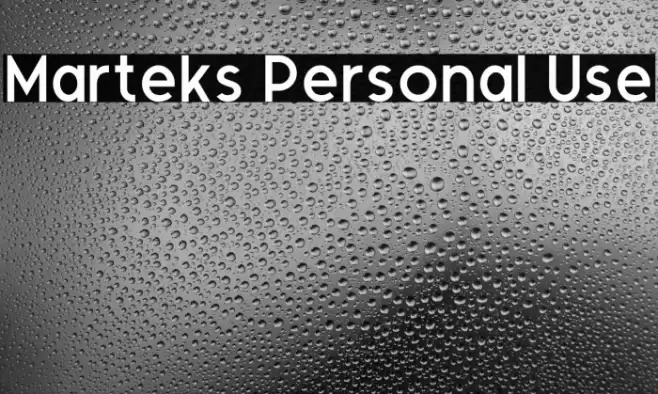
Marteks Personal Use Font
Marteks Personal Use Description
This font features a clean and modern sans-serif style with a geometric influence. The uppercase letters are bold and well-defined, providing a strong presence. The lowercase letters maintain a consistent style, offering a harmonious balance between the characters. The numerals are clear and easy to read, making them suitable for various applications. Special characters are included, adding versatility to the font's usage. The overall design is sleek and contemporary, making it ideal for modern design projects.
A modern, geometric sans-serif font with bold, clean lines from Uncategorized fonts.
- Proposed Projects: Ideal for branding, advertising, web design, and editorial projects where a modern and clean aesthetic is desired.
- Use Case: Headlines, Logos, Branding